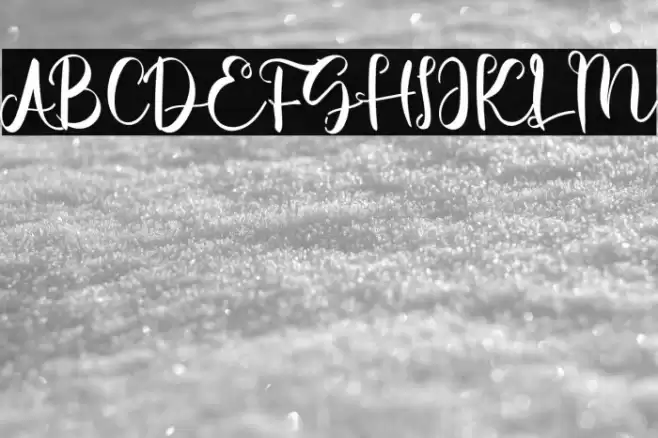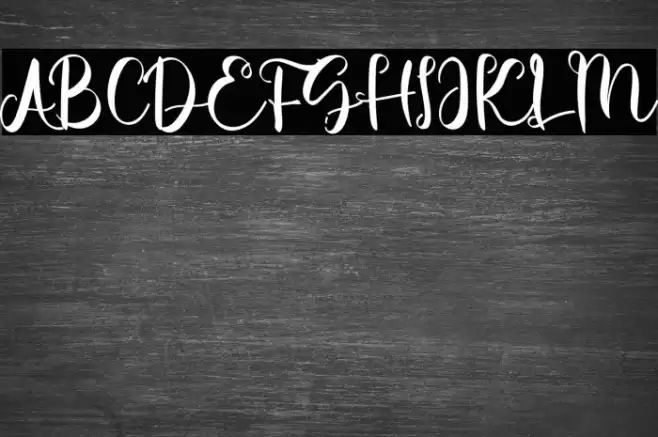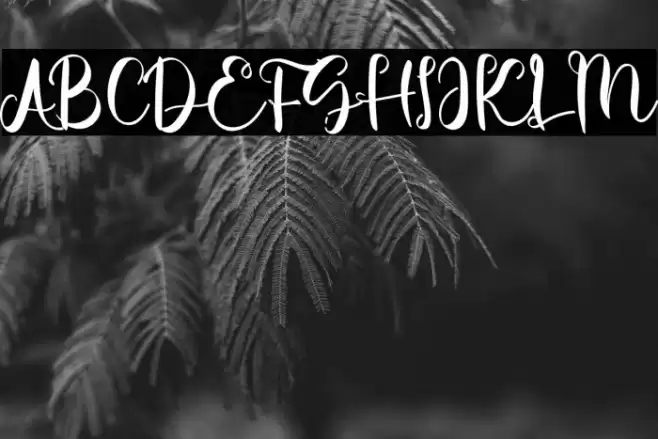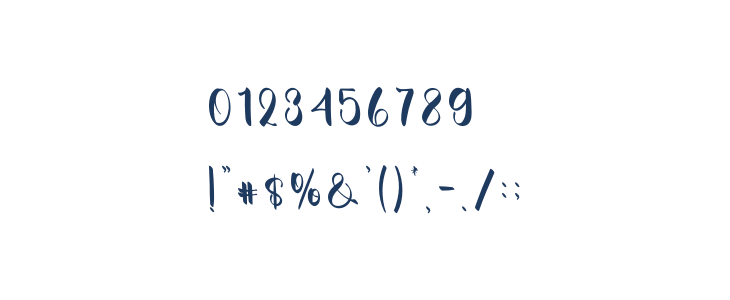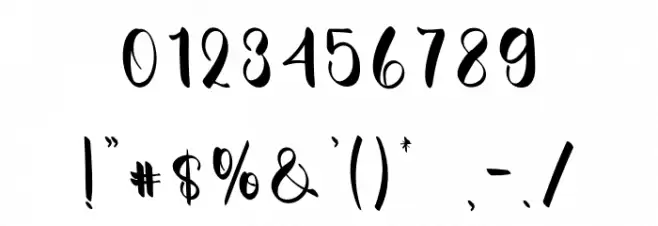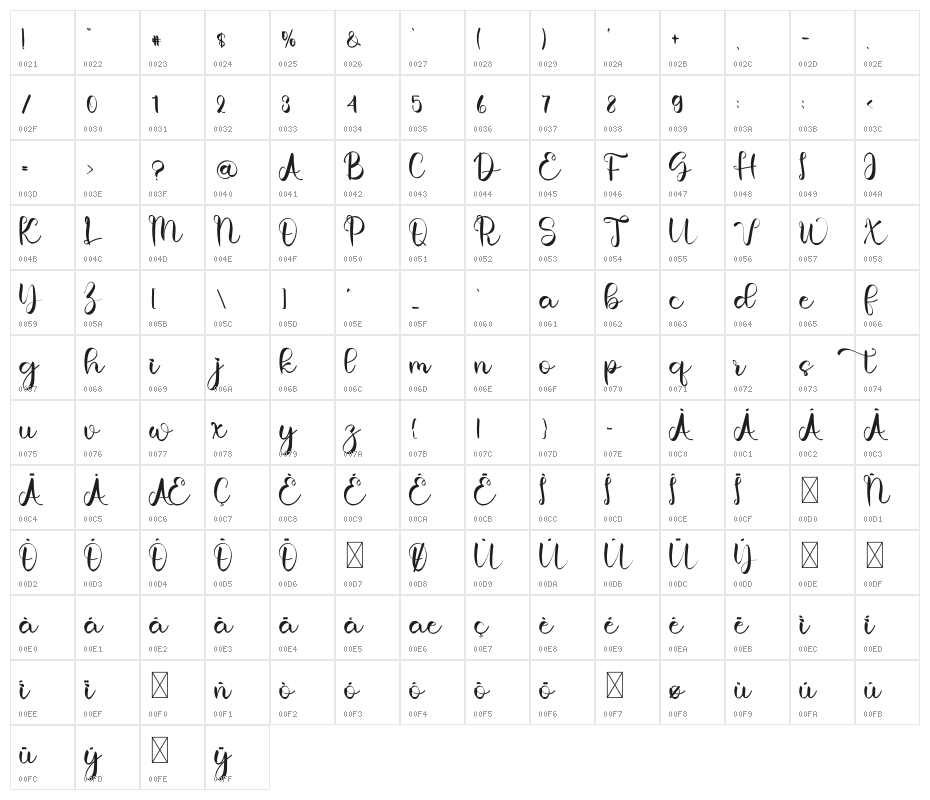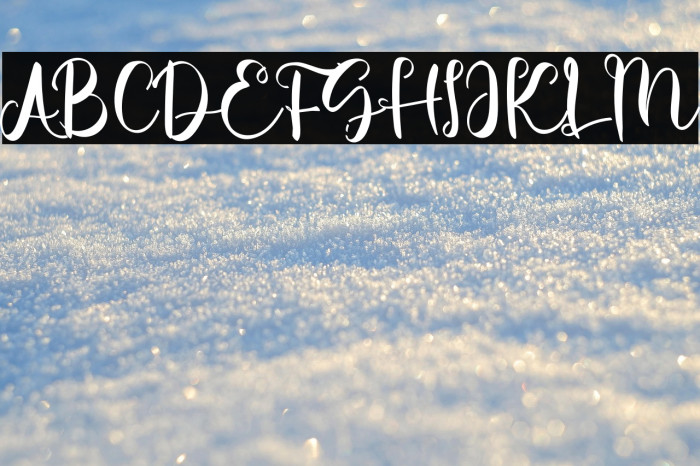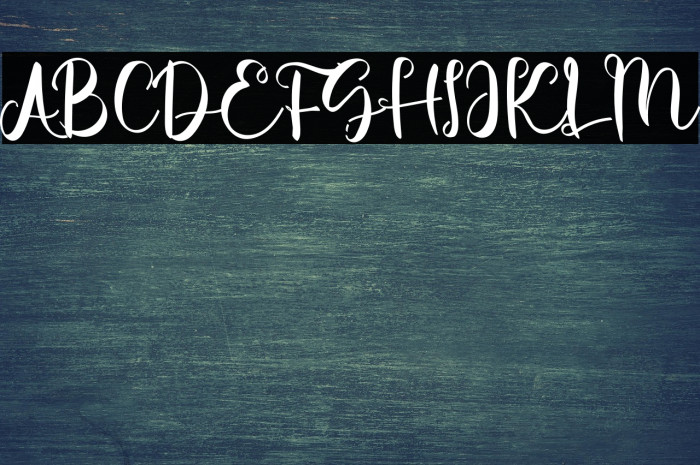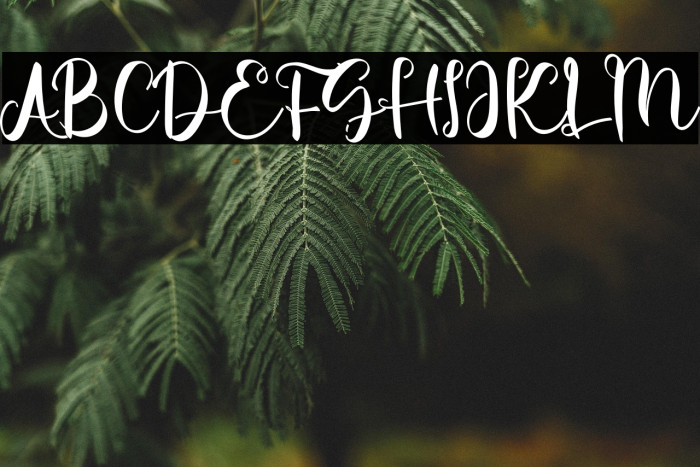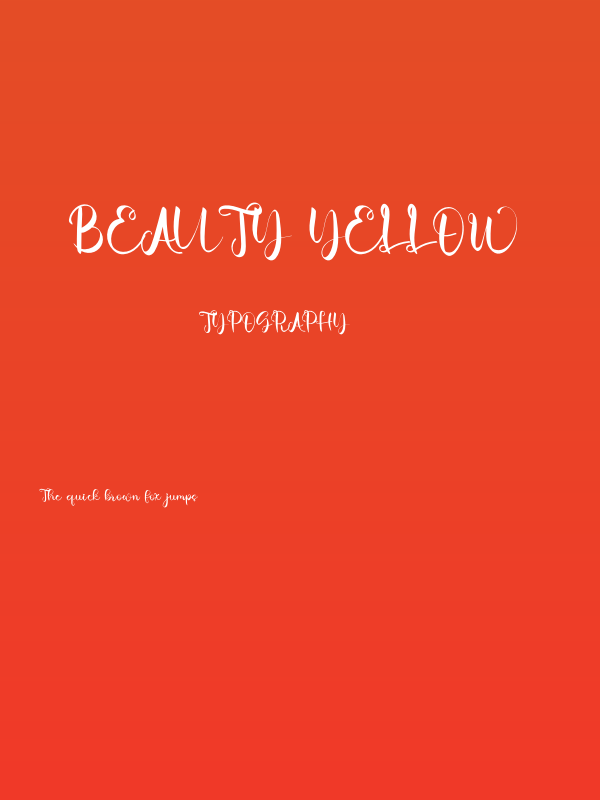
Beauty Yellow Font
Beauty Yellow Description
This font features an elegant and flowing script style, characterized by its smooth, cursive strokes and artistic flair. The uppercase letters are bold and decorative, with intricate loops and swirls that add a touch of sophistication. The lowercase letters maintain a consistent flow, with some characters extending below the baseline, enhancing the font's graceful appearance. The numerals are stylish and complement the overall design, while the special characters are creatively integrated, maintaining the font's cohesive aesthetic. This font is ideal for projects that require a personal touch, such as invitations, greeting cards, and branding materials.
An elegant, flowing script font with decorative uppercase and smooth lowercase letters from Uncategorized fonts.
- Font: Beauty Yellow
- Proposed Projects: Ideal for wedding invitations, greeting cards, branding, and logo design.
- Use Case: Logos, Invitations, Greeting Cards